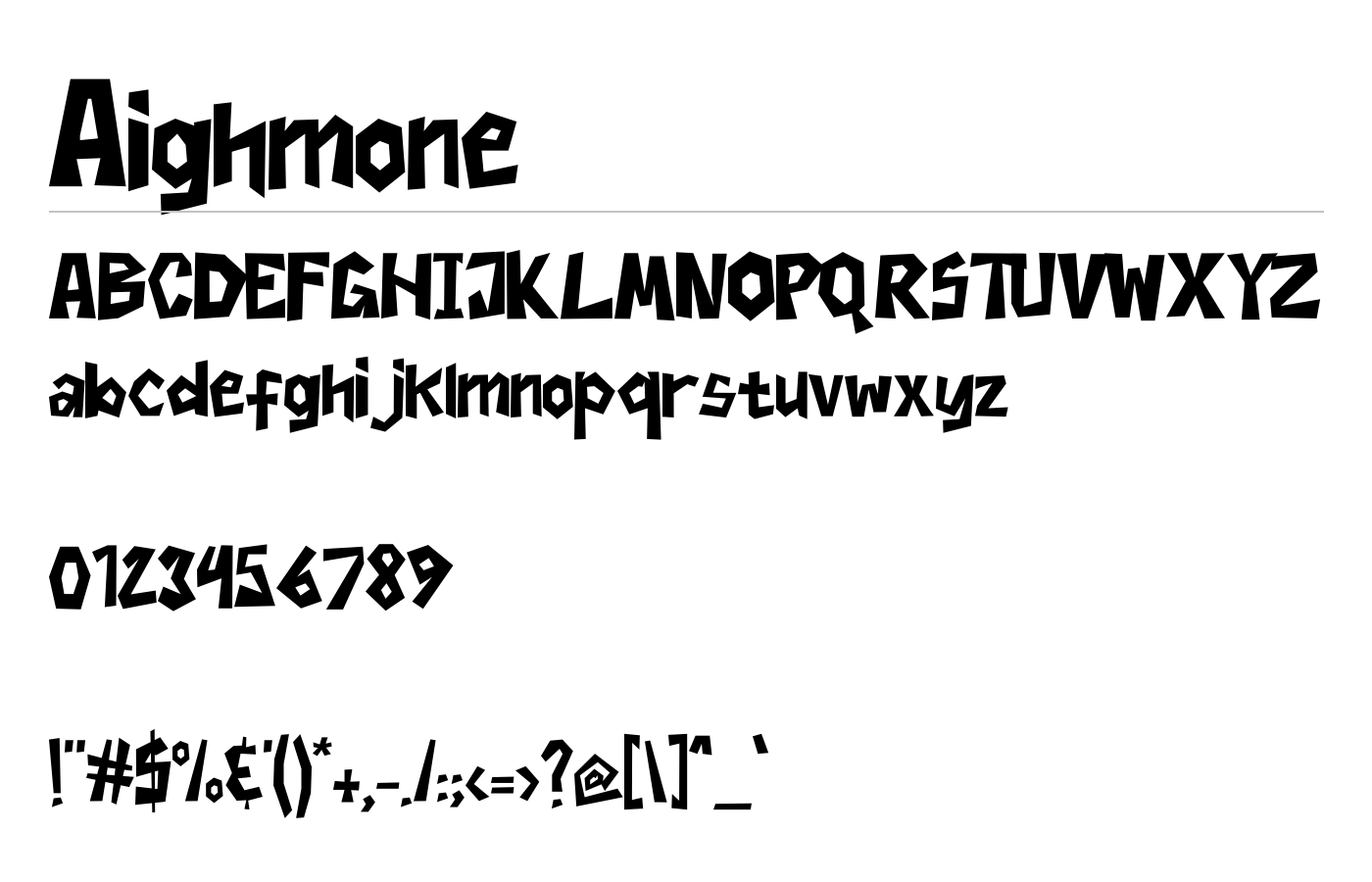
Aighmone is a bold, playful display sans serif font with a quirky, hand-cut feel characterized by irregular, angular letterforms and a slightly condensed width. Its uneven strokes and unique shapes give it a dynamic, energetic personality, making it ideal for attention-grabbing headlines, posters, and creative branding that seeks a fun, informal vibe. This font works best in designs where a distinct, unconventional style is needed to convey originality and youthful spirit.
Aighmone Font